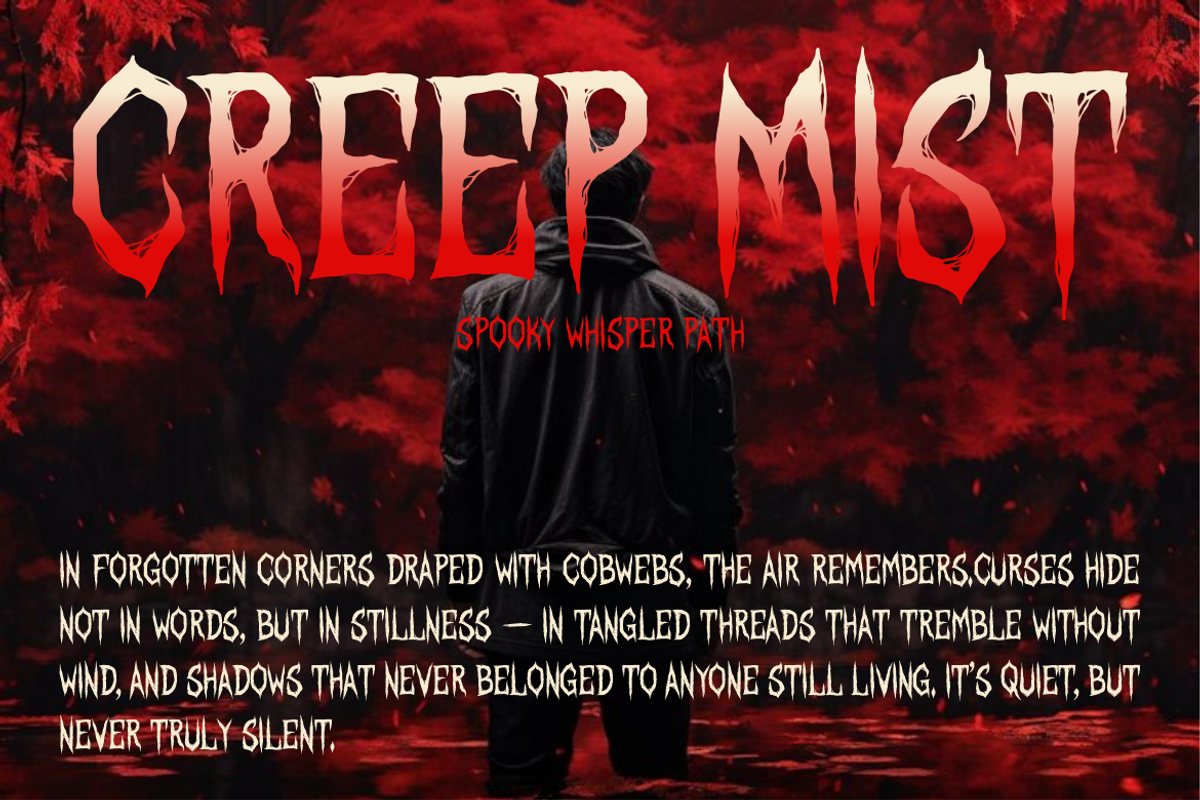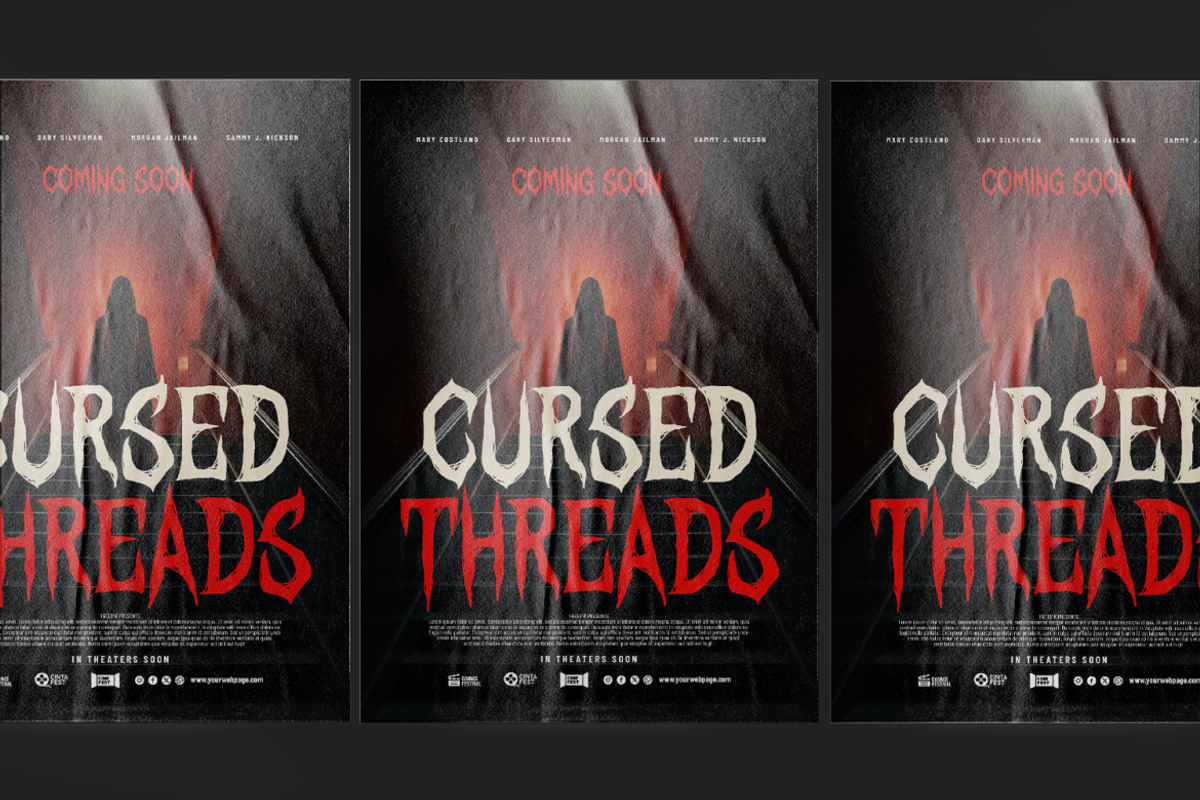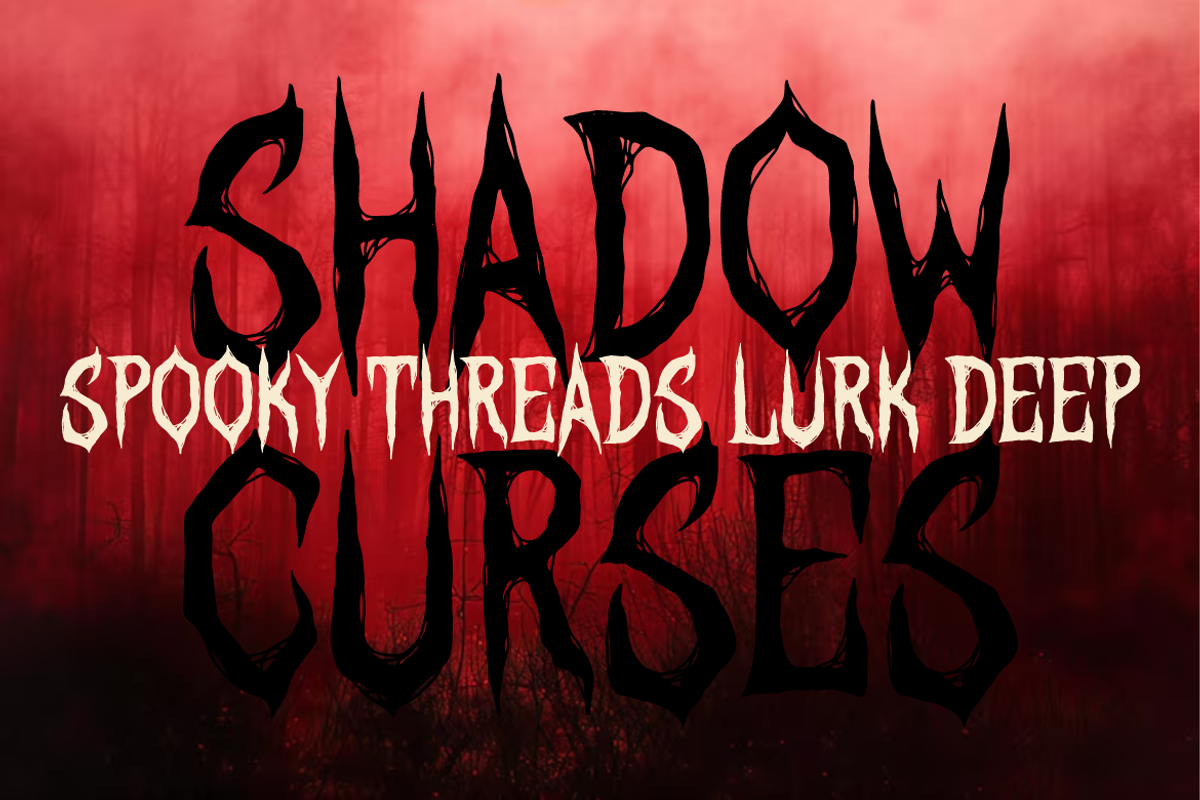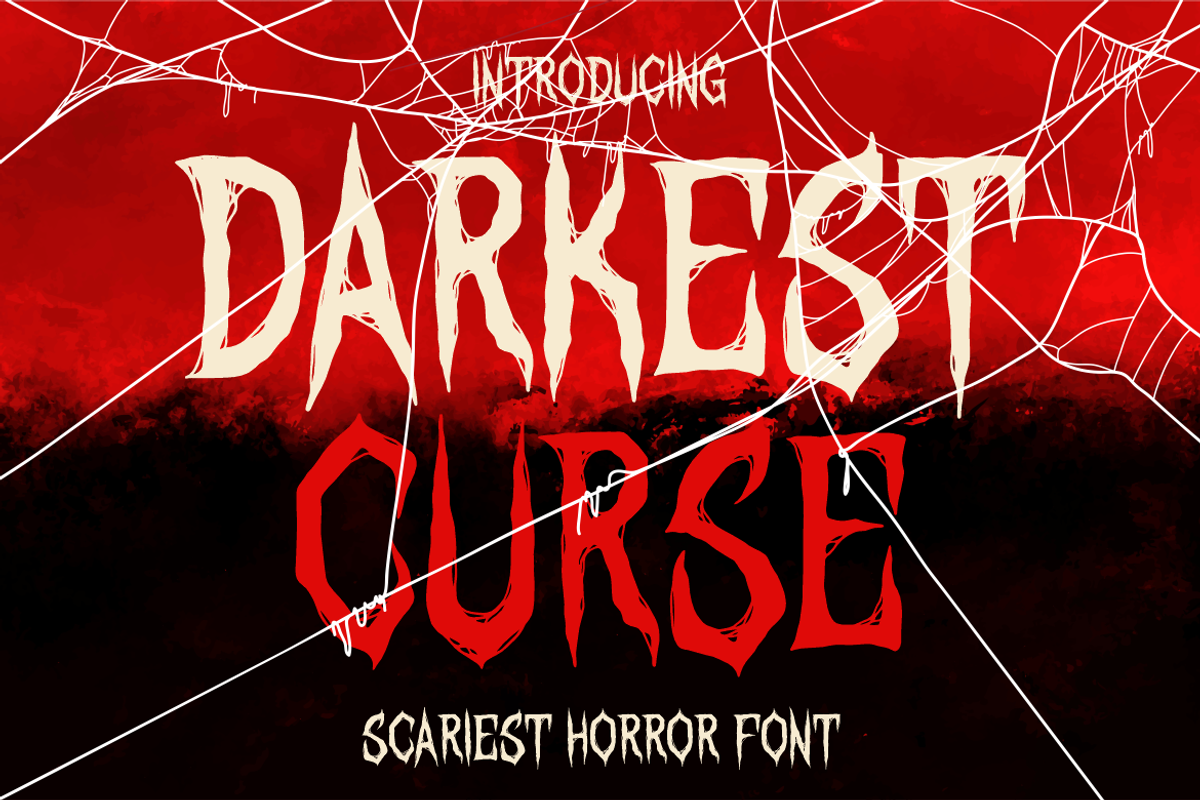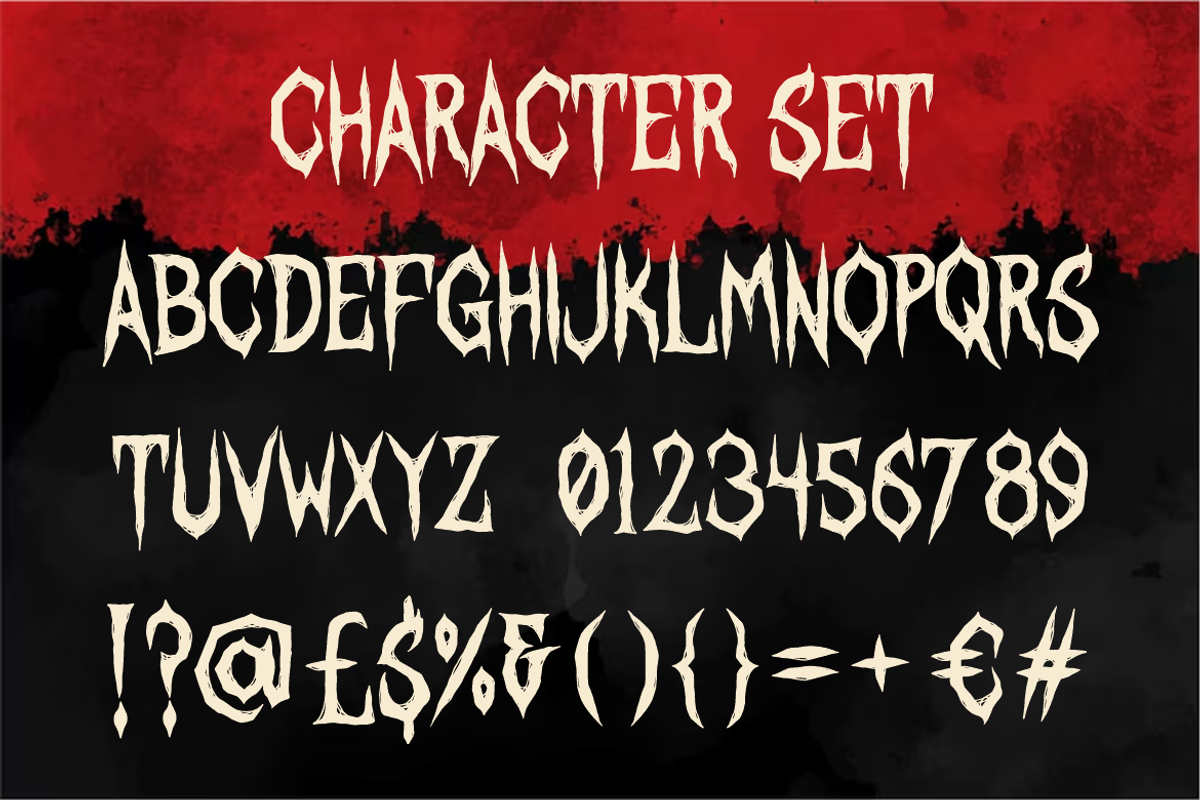
Darkest Curse - Scary Horror Font
Darkest Curse is a bone-chilling horror display font crafted to capture the raw essence of fear. With jagged edges, uneven stems, and twisted letterforms, every glyph evokes a sense of decay and madness. The typeface combines sharp pointed ends with unsettling organic strokes, making it perfect for horror movie titles, haunted attraction posters, and Halloween-themed branding. The color palette in previews—a blood-red gradient against deep black—intensifies the eerie mood, while cobweb overlays and grunge backdrops highlight its sinister aesthetic. The uppercase characters dominate with terror-infused boldness, while the lowercase forms follow a similar grotesque pattern, ensuring cohesion across all uses.
Darkest Curse thrives in any design that needs an unholy scream—film titles, book covers, eerie signage, or digital marketing for horror brands. The included punctuation and numerals maintain the same tortured texture, ideal for complete visual consistency. With its unsettling charm and theatrical style, this font gives designers a tool to unleash psychological horror into their compositions. Whether for a spine-tingling event poster or supernatural product branding, Darkest Curse summons dread with every letterform.